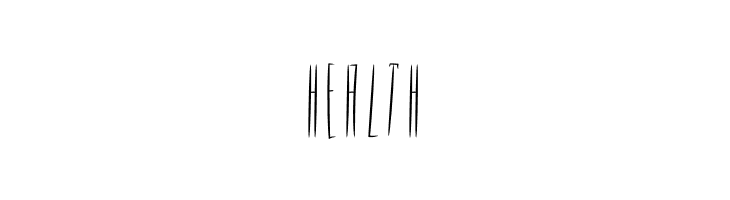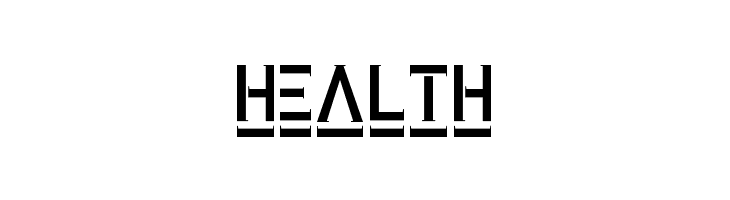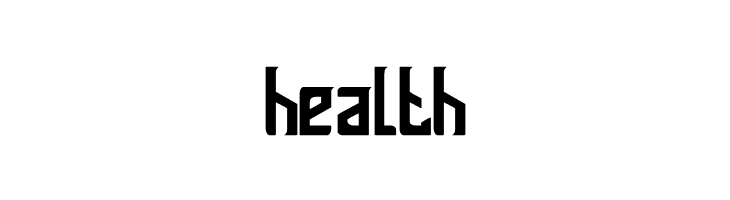
A clean, geometric font with a modern and minimalist design.
A tall, slender font with sharp serifs and a vertical emphasis.
A playful, handwritten font with smooth, consistent strokes and a casual style.
A modern, double-line font with a playful and dynamic slant.
A whimsical and artistic font with elongated strokes and a playful style.
A bold, angular font with a modern, futuristic aesthetic.
An elegant script font with flowing, cursive strokes and a sophisticated style.
A playful, rounded font with smooth curves and consistent line thickness.
A bold, modern serif font with sharp angles and strong vertical emphasis.